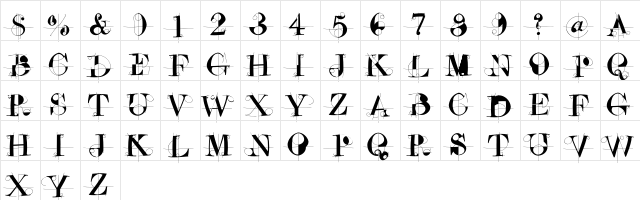
DrunkenConstructor Regular
Design Context for DrunkenConstructor Typeface
DrunkenConstructor is a composed and adaptable typeface that performs quietly and consistently across a wide range of design contexts.